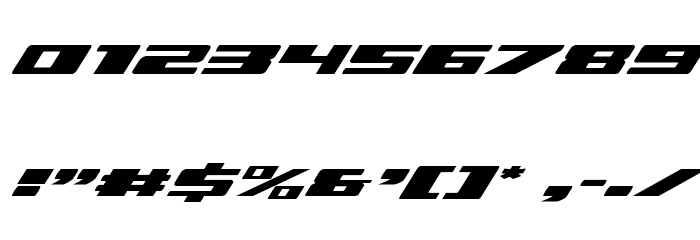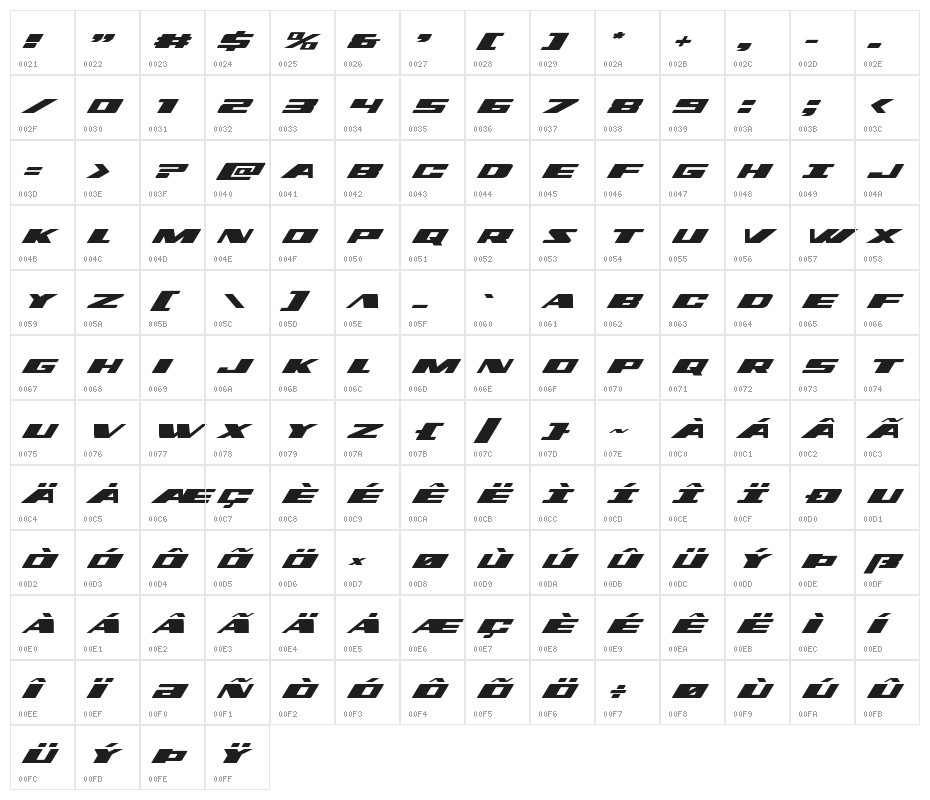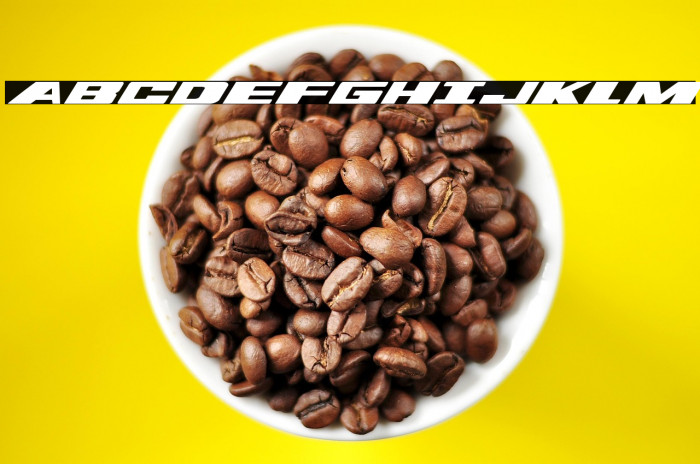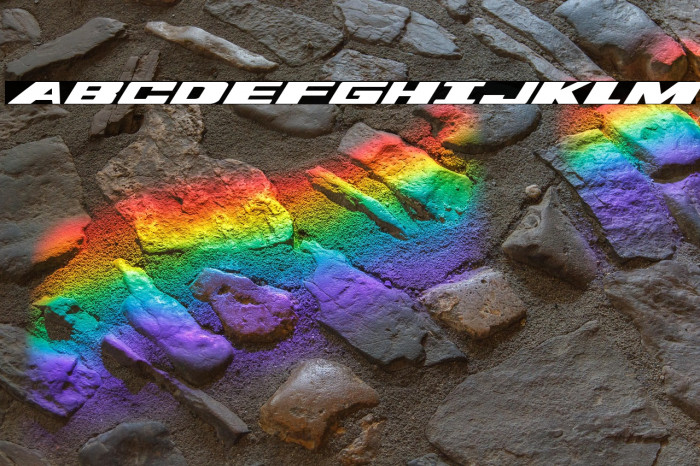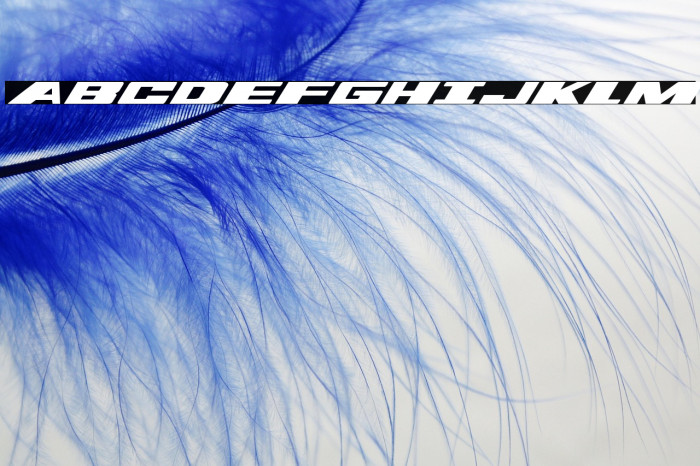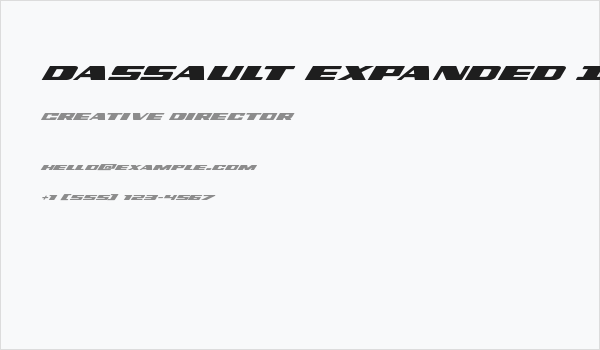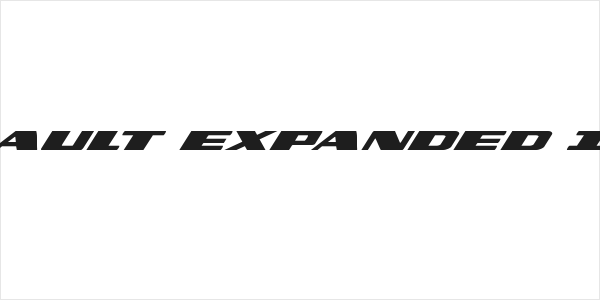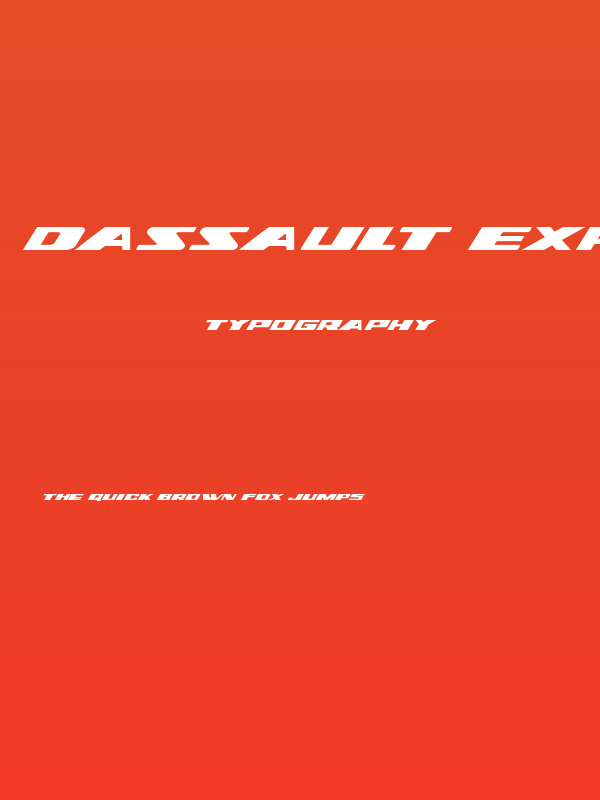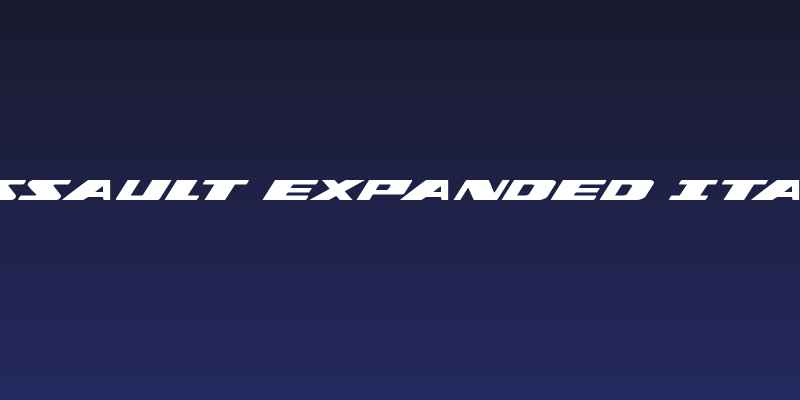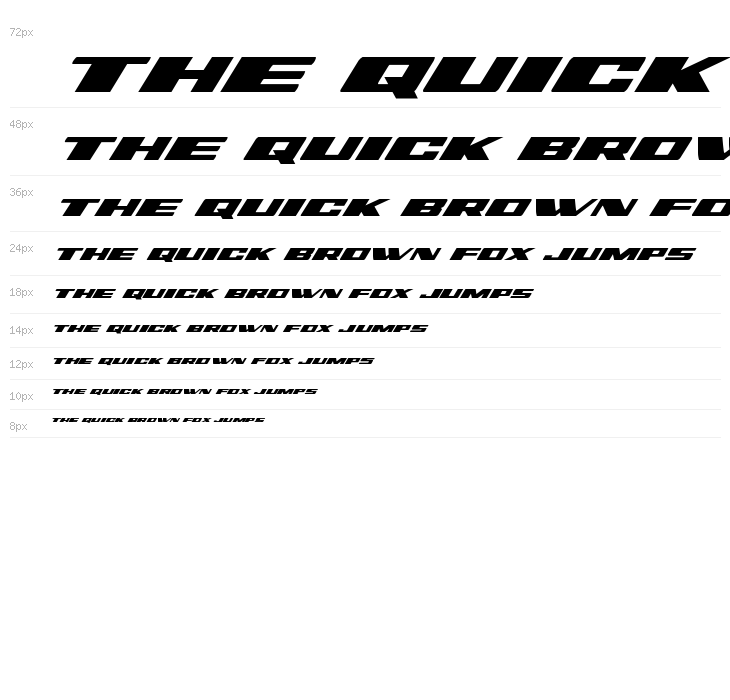
Dassault Expanded Italic Font
Dassault Expanded Italic Description
This font features a bold and dynamic style with a distinctly italicized slant, giving it a sense of motion and speed. The characters are expanded, providing a wide stance that enhances readability while maintaining a strong visual impact. The sharp, angular edges and geometric forms contribute to a modern and futuristic appearance, making it ideal for projects that require a bold statement. The uniform stroke width throughout the characters ensures a consistent look, while the expanded width allows for a commanding presence on the page. This font is particularly well-suited for headlines, logos, and branding materials where a striking and contemporary aesthetic is desired.
| Proposed Projects | Ideal for use in branding, sports team logos, automotive designs, and futuristic-themed projects. |